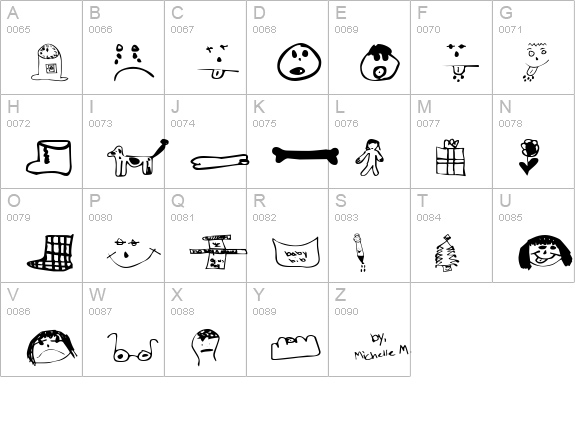
LittleSisterDingbats Font Details
LittleSisterDingbats font is a whimsical and playful typeface that is perfect for adding a touch of charm to your designs. This delightful font features a collection of unique dingbat characters that can be used to embellish your projects and make them stand out. Whether you're working on invitations, greeting cards, or social media graphics, LittleSisterDingbats font is sure to add a fun and creative element to your work. The best part is that LittleSisterDingbats font is completely free to download at FontsMarket.com. You can easily access this charming font and start using it in your projects right away. Don't miss out on the opportunity to enhance your designs with the adorable characters of LittleSisterDingbats font. Download it for free today and let your creativity shine!